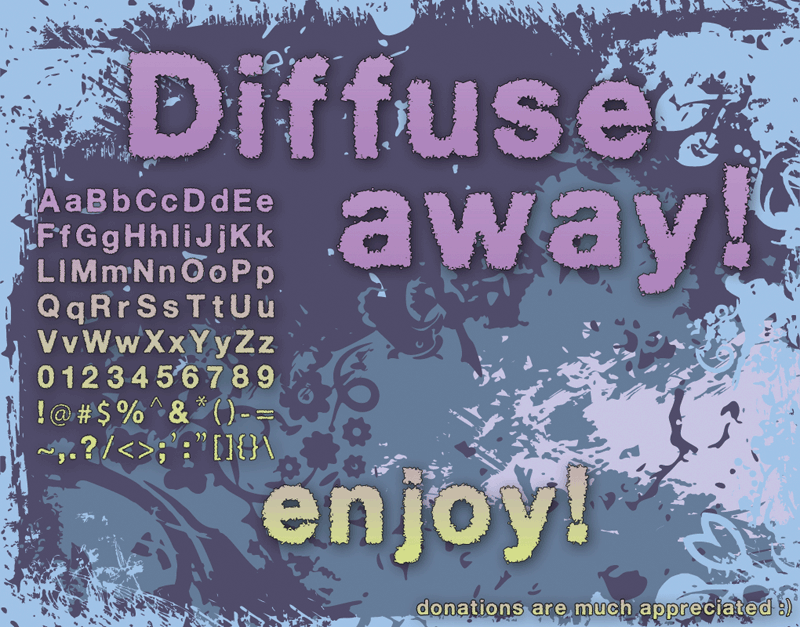
Hi there! I hope you enjoy this grungy font. If you have any suggestions or comments, feel free to contact me. Any donations would be much appreciated. :) |